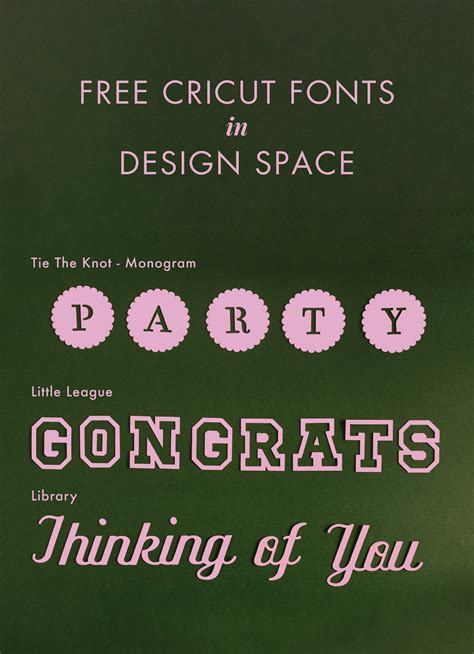
Score Big: Awesome Baseball Fonts For Cricut Design Space
Score Big: Awesome Baseball Fonts for Cricut Design Space
Hey there, crafting fanatics! Ever wanted to knock your Cricut projects out of the park? Well, baseball fonts in Cricut Design Space are your secret weapon! These fonts bring that classic, sporty vibe to your creations, whether you’re making team shirts, personalized decor, or even just some cool cards for your favorite players. Let’s dive into the world of baseball fonts and discover how you can use them to create some seriously awesome designs. Get ready to step up to the plate and hit a home run with your crafting game!
Finding the Perfect Baseball Font in Cricut Design Space
Alright, guys, let’s talk about finding the perfect baseball font for your Cricut projects . Cricut Design Space offers a bunch of options, but sometimes, the sheer number of choices can be a little overwhelming, right? Don’t worry, I’ve got your back! Here’s the lowdown on how to find the fonts that’ll make your designs shine.
First things first, head over to the “Text” tool in Design Space. You’ll find it on the left-hand side of your screen. Click it, and a text box will appear. Now, here’s where the magic happens: click on the font dropdown menu at the top. This is where you’ll see all the fonts available to you. Cricut has its own selection, but you can also access fonts you’ve downloaded to your computer – more on that in a bit!
To narrow down your search, type “baseball” or “sport” into the search bar within the font menu. This will filter the fonts and show you only the ones that match your keywords. You’ll probably see a mix of fonts, from classic, clean styles to those with more decorative, textured looks. Don’t be afraid to try out a few different ones to see what looks best for your project. Consider the overall feel you’re going for. Are you aiming for a vintage, retro vibe? Or something more modern and sleek? That will help you narrow down your choices.
Remember to consider the weight and style of the font. Some fonts are bold and strong, perfect for headlines or names. Others are more delicate, suitable for smaller text or details. Think about how the font will look when cut by your Cricut machine. Some intricate fonts can be tricky to weed, so consider opting for a bolder style if you’re new to Cricut crafting. Experimentation is key, so don’t be afraid to try different fonts until you find the perfect one for your project. And most importantly, have fun with it!
Using Baseball Fonts to Create Amazing Projects
Alright, so you’ve got your awesome baseball font picked out. Now, what do you do with it? The possibilities are endless, my friends! Let’s brainstorm some killer project ideas that’ll get those creative juices flowing. From personalized gear to home decor, baseball fonts can elevate just about anything.
First up, how about creating custom team shirts or jerseys? This is a classic, and for good reason! Using your chosen baseball font, you can easily add player names, numbers, and team logos to t-shirts, hoodies, or even baseball caps. Cricut’s iron-on vinyl is your best friend here, but make sure you follow the instructions for your specific material to get the best results. It’s a fantastic way to show team spirit or create unique gifts for players and fans alike.
Next, let’s talk about home decor. Think about designing personalized wall art for a baseball-themed bedroom or man cave. You could create motivational quotes, team slogans, or even custom player posters using the baseball font. Combine it with some baseball-themed images or graphics, and you’ll have a fantastic piece of art. Consider using materials like adhesive vinyl for walls or even wood signs for a rustic look. Using a baseball font on a wooden sign with your favorite team’s logo or a player’s name and number will make for a striking decor piece that can be displayed anywhere.
Don’t forget about personalized gifts! Baseball fonts are perfect for customizing items like water bottles, mugs, tote bags, and even phone cases. Add a player’s name, team logo, or a funny baseball-related quote to create a thoughtful and unique present. These are great for birthdays, end-of-season celebrations, or just because you want to show someone you care. Consider adding the font to a baseball bat that can be personalized with a player’s name and a memorable date.
For scrapbookers and card makers, baseball fonts are a goldmine! Use them to create scrapbook layouts, birthday cards, and thank-you notes for baseball lovers. Add the font to your layouts, then add pictures of baseball games, tournaments, or memorable moments. You can even use the font to create labels and titles for your pages. With a little creativity, you can use these fonts to create fantastic baseball-themed cards, invitations, and more. Use some baseball-themed paper and embellishments to complete the look. The possibilities are truly limitless!
Downloading and Uploading Baseball Fonts to Cricut Design Space
Okay, so what if the perfect baseball font isn’t already in Cricut Design Space? No worries, we’ve got a solution for that! You can download and upload fonts from other sources. Here’s how to do it. You can find a huge variety of fonts online, including many that are perfect for baseball projects.
First, you’ll need to find a website that offers free or paid fonts. Some popular options include DaFont, Font Squirrel, and Creative Fabrica. Make sure you check the licensing terms of any font before you download it. Some fonts are free for personal use only, while others may require a commercial license if you plan to sell your creations. Once you’ve found a font you like, download the font file to your computer. Typically, this will be in a .ttf or .otf format.
Next, you’ll need to install the font on your computer. The installation process varies slightly depending on your operating system (Windows or Mac), but it’s generally pretty straightforward. On Windows, you can usually right-click the font file and select “Install.” On a Mac, you can double-click the font file and install it through the Font Book application.
Once the font is installed on your computer, open up Cricut Design Space and start a new project. Select the “Text” tool, and open the font menu. Click the “System” tab or “All” to see the fonts that are installed on your computer. Scroll through the list until you find your newly installed baseball font. Select the font, type your text, and start customizing your design. If you don’t see the font right away, you may need to close and reopen Cricut Design Space for the font to appear. Or try restarting your computer, and see if it works.
Remember to consider the spacing and kerning of your text. Some fonts may require some adjustments to make the text look its best. You can use the letter spacing and kerning tools in Cricut Design Space to fine-tune your design. With a little patience and experimentation, you can add any baseball font to your projects. That’s all there is to it! Now you’re ready to create awesome baseball-themed designs using your new, custom fonts!
Tips and Tricks for Using Baseball Fonts
Alright, guys, let’s wrap things up with some tips and tricks to help you get the most out of your baseball font projects. These pointers can help you avoid common pitfalls and create designs that look truly professional. Let’s get crafting!
First off, pay attention to the font’s kerning and spacing. Kerning refers to the space between individual letters, and spacing refers to the overall space between words and lines of text. Sometimes, fonts can look a little off if the kerning isn’t adjusted correctly. In Cricut Design Space, you can use the letter spacing and line spacing tools to fine-tune your design. Adjusting these settings can make a huge difference in the overall look and feel of your text.
Next up, consider the layering of your designs. Baseball fonts often look fantastic when combined with other elements, such as team logos, baseballs, or stripes. When layering designs, make sure your layers are properly aligned and that you’re using the correct materials. Using a multi-layer design to give your text a 3D effect can produce fantastic results.
Another helpful tip is to test your design before cutting it. Before you send your design to your Cricut machine, cut a small test piece using scrap material. This will allow you to check for any potential issues with your design, such as small details that might be difficult to weed or cut. This is particularly important with more intricate baseball fonts. This can save you a lot of time, and material, and prevent costly mistakes.
When choosing colors, consider the colors of the team or league you’re designing for. Use the team’s colors to keep your project cohesive. For example, if you’re making a shirt for the Yankees, you might use navy blue, white, and gray. Sticking to a limited color palette will help create a professional look. Don’t be afraid to experiment with different color combinations, but try to keep it simple and clean. Using complementary colors can make your design pop.
Finally, don’t be afraid to experiment and have fun! Cricut Design Space offers a wide range of tools and features that you can use to customize your designs. Try different fonts, sizes, and colors. Use the contour tool to modify the shapes of your text and add unique effects. If you’re a beginner, start with simple projects and gradually work your way up to more complex designs. The more you practice, the better you’ll become! So, go out there, get creative, and make some amazing baseball-themed projects. Enjoy your crafting journey!